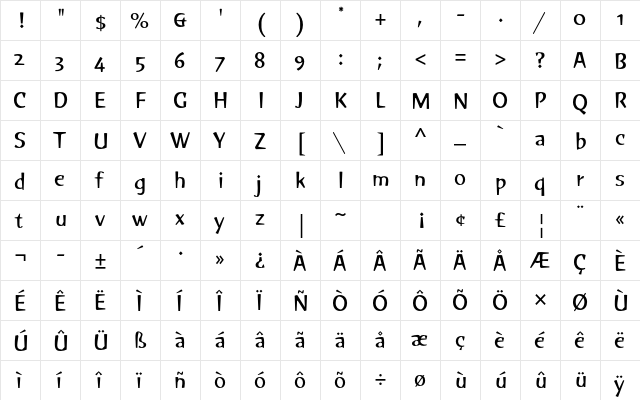
Green Std Regular
| Designer | Timothy Donaldson |
Design Context for Green Std Typeface
Green Std takes a measured approach to typography — its balanced proportions and neutral character make it a reliable workhorse for both digital and print work.